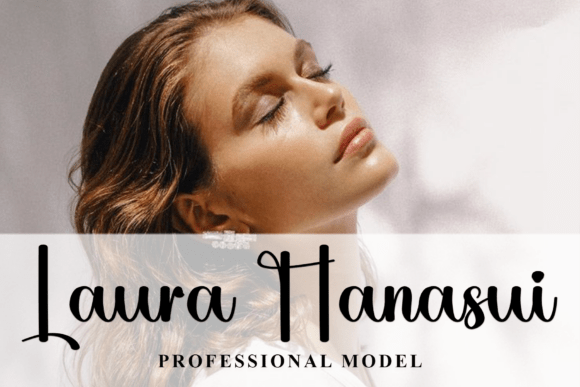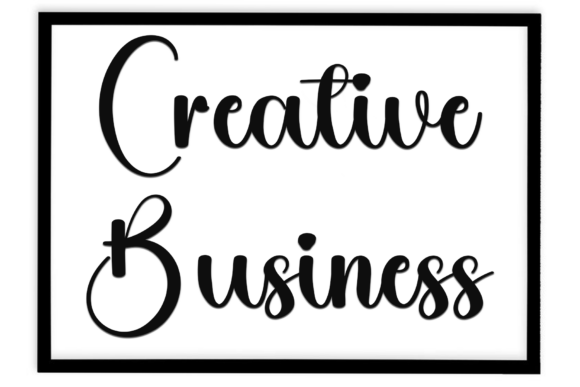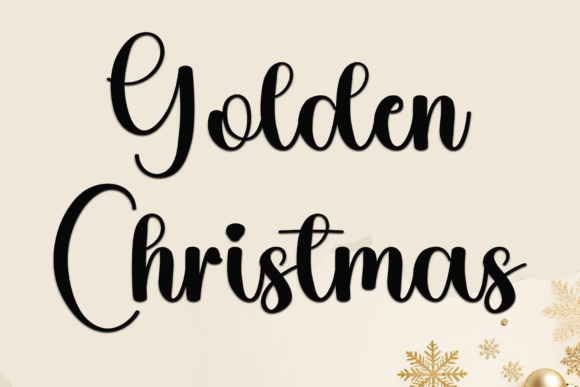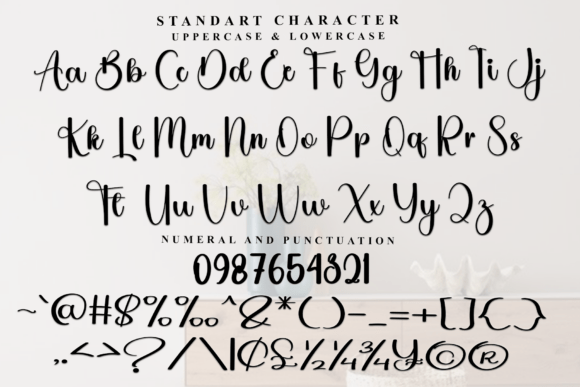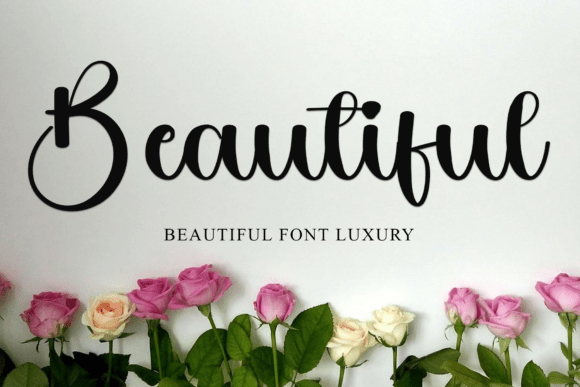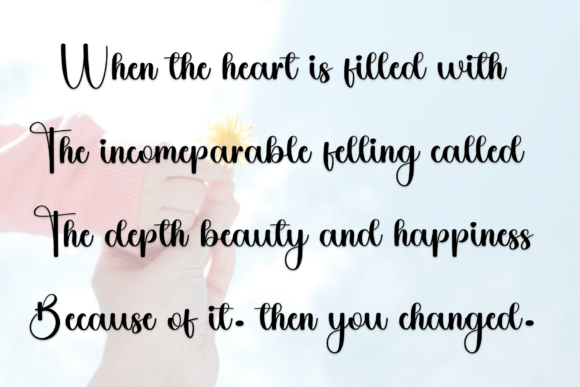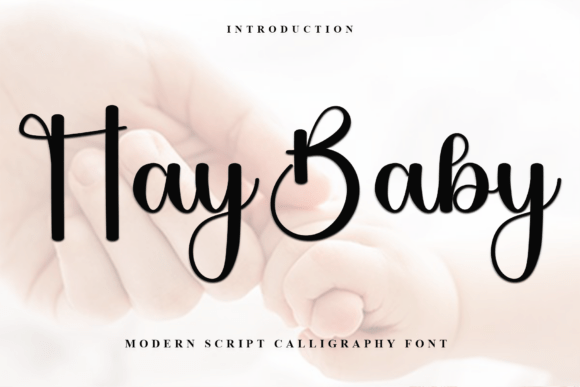
Introducing Hay Baby Font: The Ultimate Holiday Typeface
The holiday season is upon us, and what better way to get into the spirit than with a festive and merry typeface? Look no further than Hay Baby Font, a decorative and whimsical font that captures the essence of the holiday season. With its enchanting elements and nostalgic flair, this font is perfect for adding a touch of magic to your designs.
A Festive Font for Your Holiday Projects
Hay Baby Font is specifically designed to bring a cheerful and nostalgic ambiance to your words. Whether you’re creating greeting cards, gift tags, or holiday-themed projects, this font is sure to impress. Its decorative elements and whimsical flair make it the perfect choice for designers and crafters looking to add a touch of holiday cheer to their work.
What Makes Hay Baby Font Special?
So, what sets Hay Baby Font apart from other typefaces? For starters, it’s PUA encoded, which means you can access all of the amazing glyphs and ligatures with ease. This font is designed to be user-friendly, making it simple to incorporate into your designs. Plus, its unique and festive elements will add a touch of personality to your work.
Hay Baby Font is a must-have for designers and crafters looking to create holiday-themed projects. Whether you’re creating digital or physical designs, this font is sure to bring a touch of holiday magic to your work. Use it to create:
- Festive greeting cards for friends and family
- Whimsical gift tags for presents
- Holiday-themed social media graphics
- Enchanting blog posts and articles
- Magical craft projects, such as paper crafting and scrapbooking
Why Choose Hay Baby Font?
With so many typefaces to choose from, why choose Hay Baby Font? Here are just a few reasons:
- Unique and festive design: Hay Baby Font is designed to capture the spirit of the holiday season, making it perfect for holiday-themed projects.
- Easy to use: With PUA encoding, you can access all of the amazing glyphs and ligatures with ease.
- Versatile: Use Hay Baby Font for a variety of projects, from digital designs to physical crafts.
- Nostalgic ambiance: This font brings a cheerful and nostalgic ambiance to your words, perfect for creating holiday-themed projects.
Tips for Using Hay Baby Font
Here are a few tips for getting the most out of Hay Baby Font:
- Experiment with different sizes and colors: Hay Baby Font looks great in a variety of sizes and colors, so don’t be afraid to experiment and find the perfect combination for your project.
- Pair with other festive fonts: Try pairing Hay Baby Font with other festive fonts to create a unique and eye-catching design.
- Use for headlines and titles: Hay Baby Font is perfect for headlines and titles, where its decorative elements and whimsical flair can really shine.